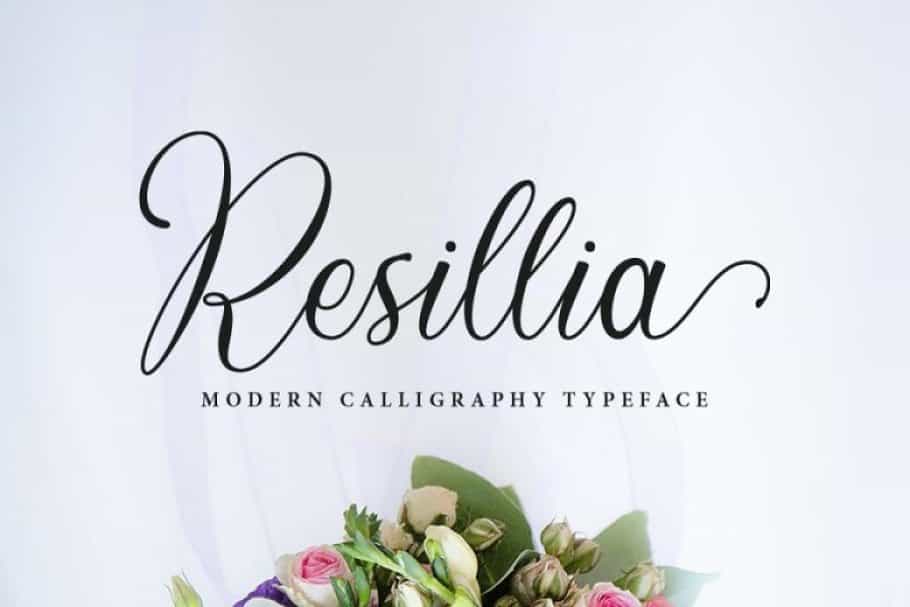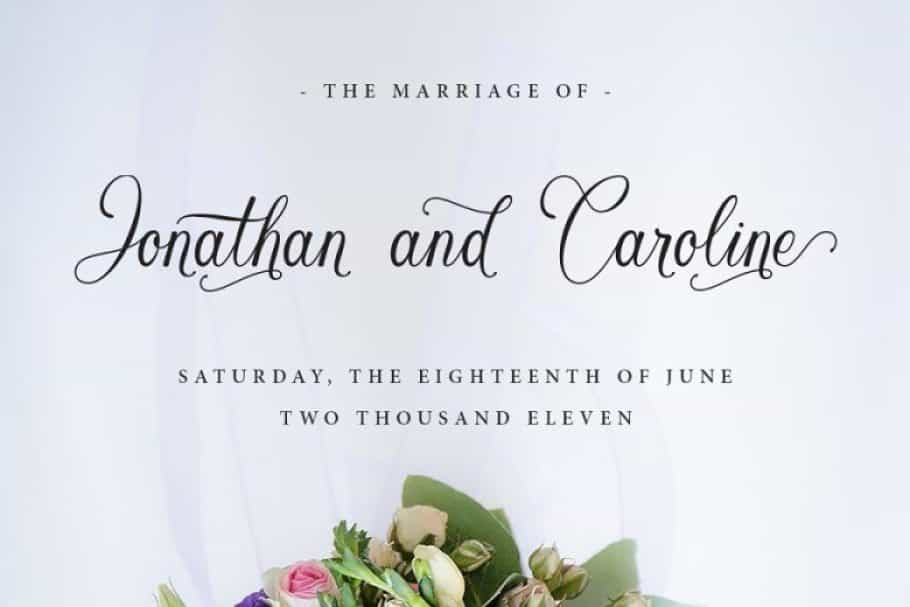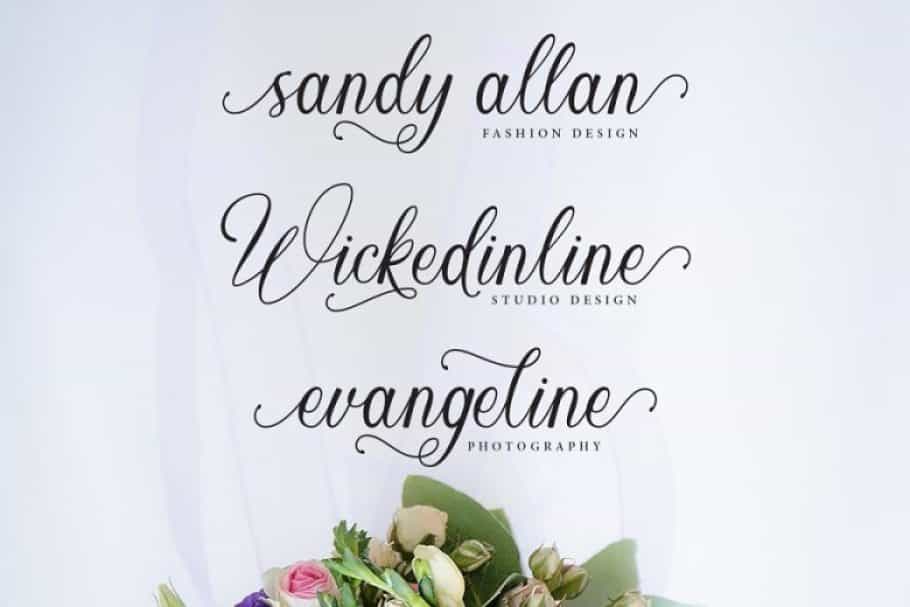
Resillia is a beautiful modern font in the category of calligraphy fonts. Beautiful for logotypes, website headers styles, fashion design projects, wedding card design and many other projects, Resillia is rather effective and will always be noticed – in logotypes, on websites, in fashion design projects or in wedding invitations, for example. Included is also an Italic version.